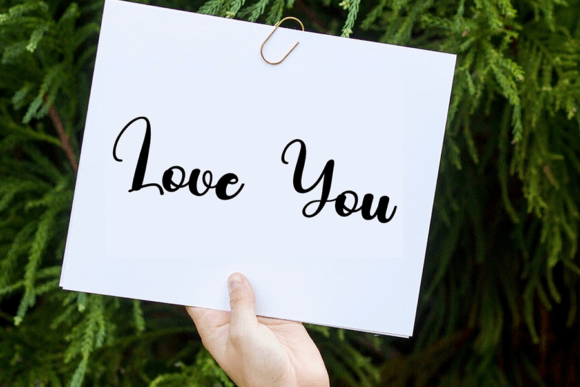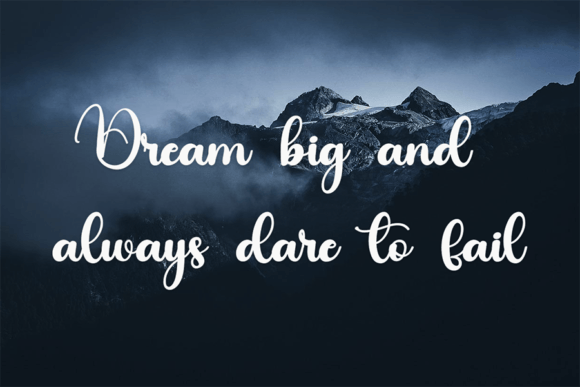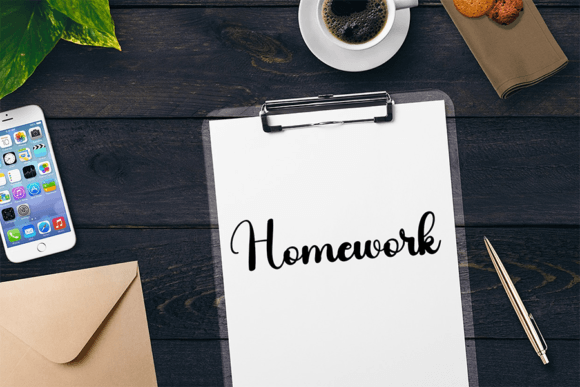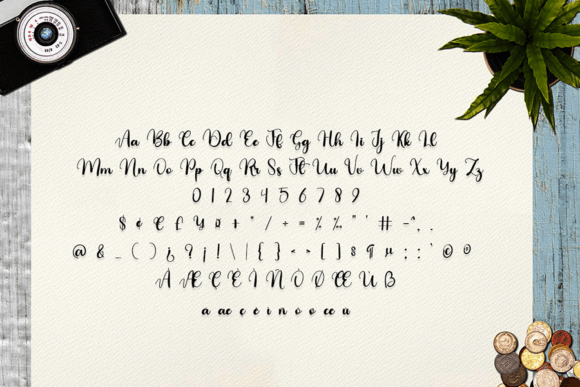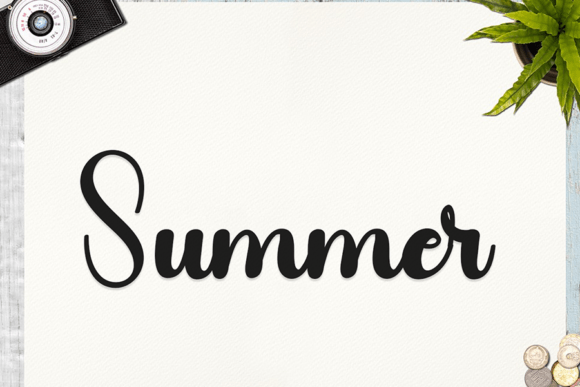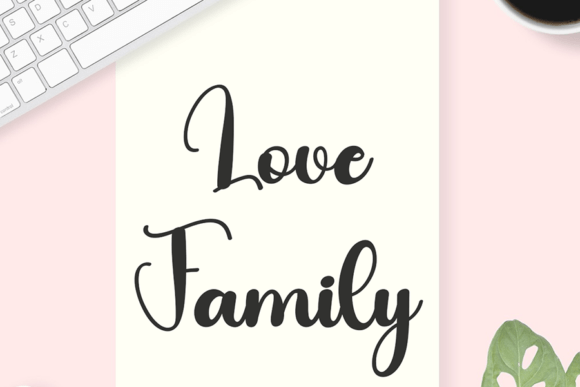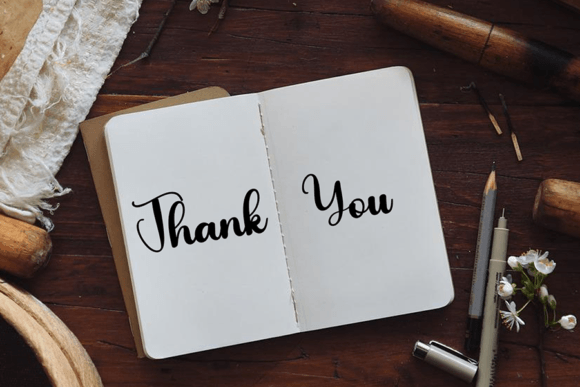
Notebook Font
About Notebook Font
**”Notebook”** is a delicate handwritten font that has been meticulously crafted to bring a cool and unique vibe to your designs. This versatile font can be used in various creative projects, adding a touch of individuality and charm. Here are some key features and potential uses for the “Notebook” font:
1. **Delicate and Unique:** “Notebook” exudes a delicate and unique charm, making it an ideal choice when you want to create designs that stand out and have a personalized touch.
2. **Versatile Application:** This font can be used for a wide range of design purposes, including writing letters, creating invitations, labeling food products, designing titles, and more.
3. **Handwritten Authenticity:** “Notebook” conveys a sense of handwritten authenticity, giving your designs a personal and relatable feel.
4. **Individuality and Coolness:** Use this font to infuse your projects with individuality and coolness, making them more appealing and memorable.
5. **Creative Freedom:** The font offers creative freedom, allowing you to experiment with different design ideas and styles while maintaining a handwritten aesthetic.
In essence, **”Notebook”** is a font that can add a delicate and unique flair to your creative projects. Its versatility and handwritten authenticity make it a valuable resource for designers and individuals looking to create designs that are not only cool but also distinctive and relatable.